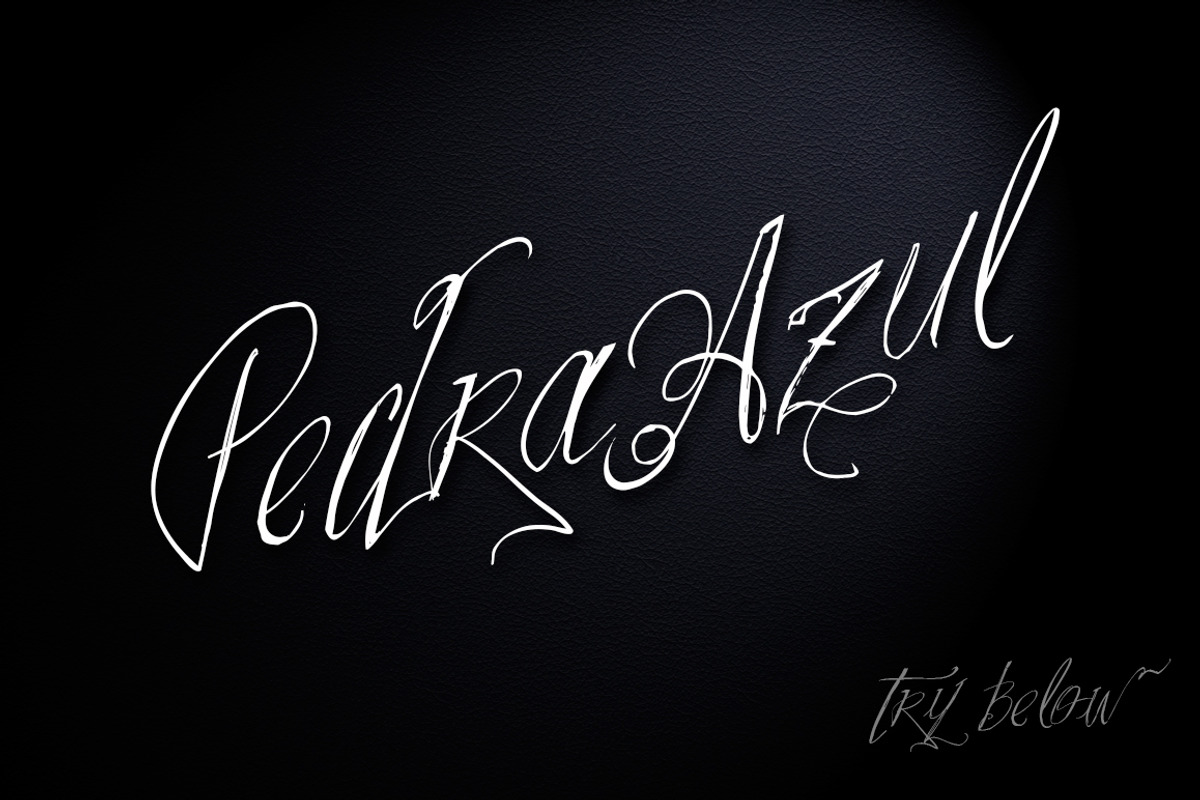
Pedra Azul Font
Pedra Azul Font by vtks design is a font selected for branding, posters, packaging, typography.
Why Pedra Azul Font is worth a look
Pedra Azul Font by vtks design fits naturally into Branding, posters, packaging, typography.